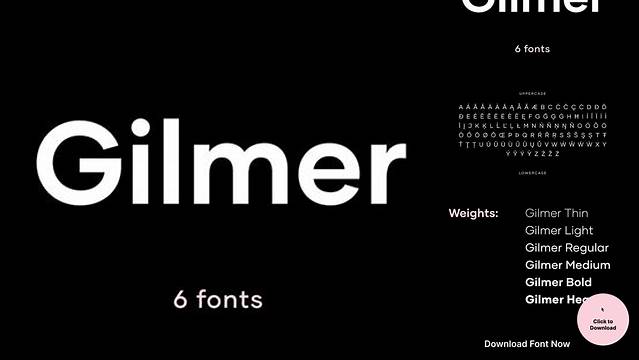
Are you searching for a font that's both modern and timeless? Look no further than Gilmer, a stunning geometric sans-serif typeface that's perfect for a wide range of design projects. And the best part? You can get a Gilmer geometric sans serif free download! This article will dive deep into Gilmer, exploring its features, how to download it, and how you can use it to elevate your designs. So, let's get started, guys!
Understanding the Gilmer Font
What is Gilmer?
Gilmer is a geometric sans-serif font, which means it's characterized by clean, straight lines and a lack of serifs (the small strokes at the ends of letters). These fonts are known for their simplicity, readability, and modern aesthetic. Gilmer takes these characteristics and elevates them with a touch of elegance and sophistication. This font is perfect for creating designs that are both visually appealing and easy to read. Its geometric forms give it a unique look that makes it stand out from other sans-serif fonts. This makes it a great choice if you are looking to make a statement with your design. Whether you're a seasoned designer or just starting out, Gilmer offers a versatile and stylish option to enhance your projects. The clean lines and balanced proportions make it ideal for various applications, ensuring your text looks polished and professional. This versatile font is perfect for various projects, from website headers and body text to print materials such as posters and brochures. The key to Gilmer's appeal lies in its versatility. It's modern enough to fit contemporary designs while still maintaining a classic feel that works well in more traditional settings. This makes it a solid choice for a wide variety of projects.
Key Features of Gilmer
One of the things that makes Gilmer so special is its unique design features. The font's creators paid close attention to detail, resulting in a typeface that is both visually appealing and functional. The carefully crafted letterforms and geometric shapes are a testament to the designer's skill. The result is a font that's clean, modern, and easy on the eyes. Here's a breakdown of some of Gilmer's most notable features:
- Geometric Shapes: As a geometric sans-serif, Gilmer's letterforms are built from basic geometric shapes like circles, squares, and triangles. This gives it a clean and modern look. These geometric foundations ensure visual consistency and balance. This design approach creates a harmonious and aesthetically pleasing experience, making it easy to read and visually engaging.
- High Readability: Despite its modern design, Gilmer prioritizes readability. The letterforms are carefully crafted to ensure that each character is distinct and easy to recognize, making it ideal for both headlines and body text. This attention to detail is crucial for a font, and Gilmer excels in this aspect. With its clean lines and open counters, Gilmer allows for easy and comfortable reading, even in long blocks of text. This is particularly important for websites and other digital platforms where readability is key.
- Versatility: Gilmer is incredibly versatile, suitable for a wide range of design applications. Whether you're designing a website, creating marketing materials, or crafting a logo, Gilmer can adapt to your needs. From headlines to body text, this font maintains its visual appeal. This versatility makes Gilmer a go-to choice for designers working on diverse projects.
- Multiple Weights and Styles: The Gilmer font family typically includes multiple weights and styles, allowing you to choose the perfect look for your project. From light and thin to bold and heavy, you can select the weight that best suits your needs. This variety makes it easier to create visual hierarchy and add emphasis where needed. This makes it easy to create visual hierarchy and highlight important information. This flexibility ensures that you have the right version for any design project.
Benefits of Using Gilmer
Using Gilmer can significantly enhance the visual appeal and effectiveness of your designs. Its clean lines and modern aesthetic make it a perfect choice for projects that aim to convey a sense of sophistication and professionalism. By choosing Gilmer, you’re investing in a font that can elevate your brand and captivate your audience. It offers a seamless blend of elegance and functionality. Here’s a closer look at some of the key benefits:
- Modern Aesthetic: The clean geometric forms of Gilmer instantly give your designs a modern and contemporary feel. This is particularly beneficial for projects that target a younger, more design-savvy audience. This style is ideal for brands looking to project a forward-thinking image. This modern appeal is perfect for websites, apps, and other digital platforms.
- Enhanced Readability: Its high readability ensures that your message is clearly and effectively communicated. This is crucial for projects where clarity is paramount. Gilmer's design allows for comfortable reading, making it easier for your audience to consume your content. This improved readability is especially important for body text, ensuring that your audience stays engaged.
- Professionalism: Gilmer exudes professionalism and sophistication, making it a great choice for branding and corporate materials. This font can give your brand a polished and trustworthy image. The clean lines and balanced proportions of the font create a sense of order and stability. This is essential for conveying credibility and building trust with your audience.
- Versatile Applications: Gilmer's versatility makes it suitable for a wide range of projects, from website design to print materials. This flexibility ensures that you can use it across different platforms and formats. Whether you're designing a website, creating marketing materials, or crafting a logo, Gilmer adapts to your needs. This is particularly beneficial for brands that need a consistent visual identity across all their communication channels.
Conclusion: Embrace the Elegance of Gilmer